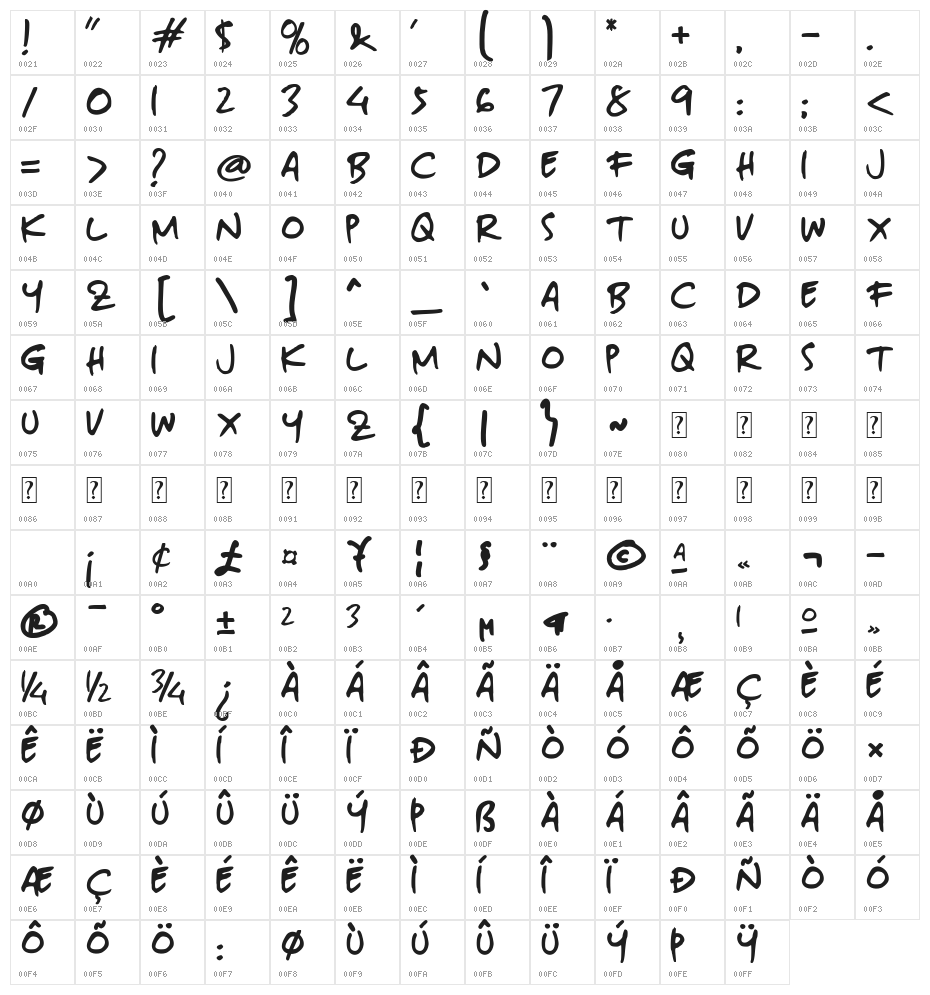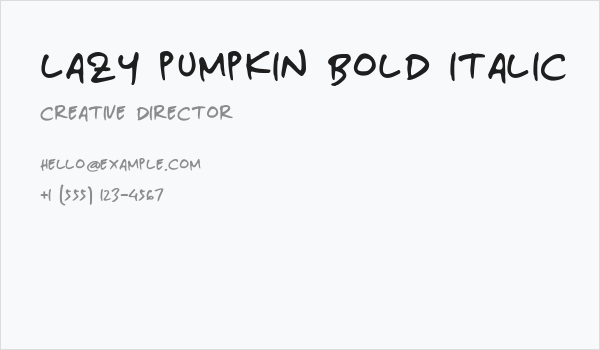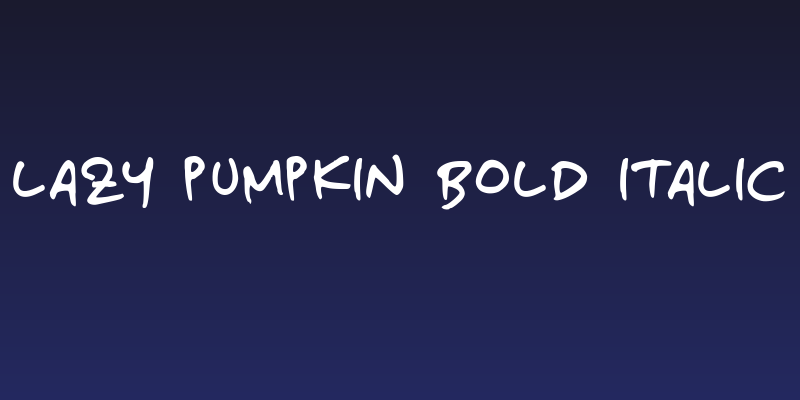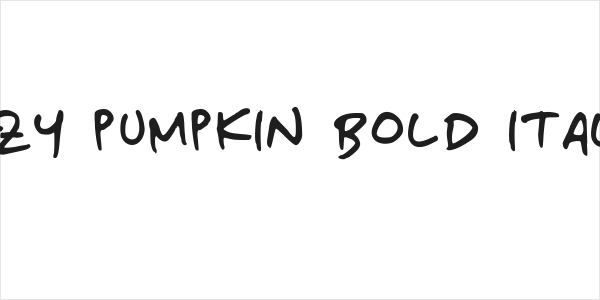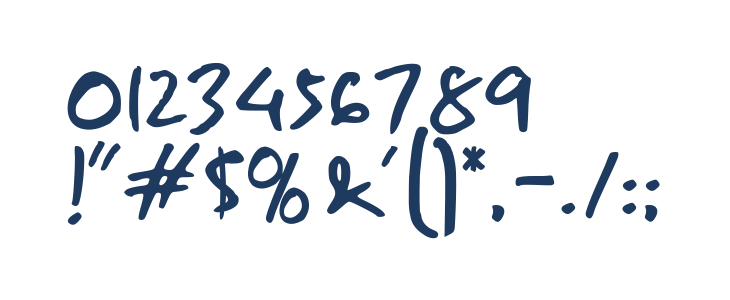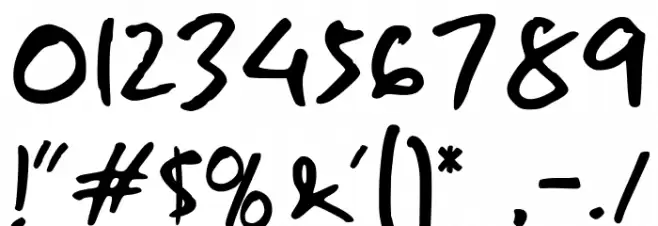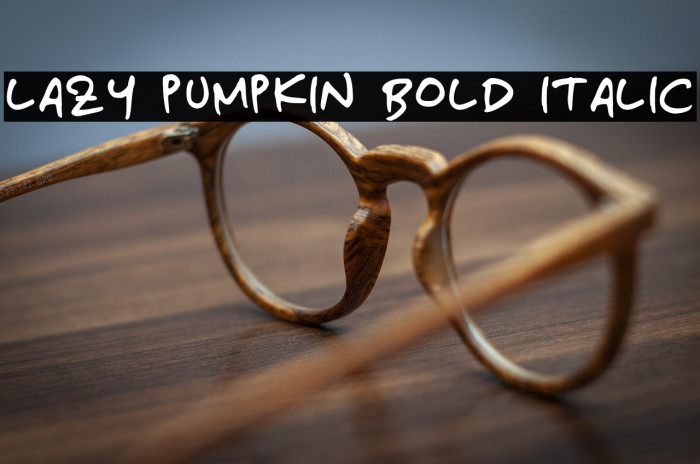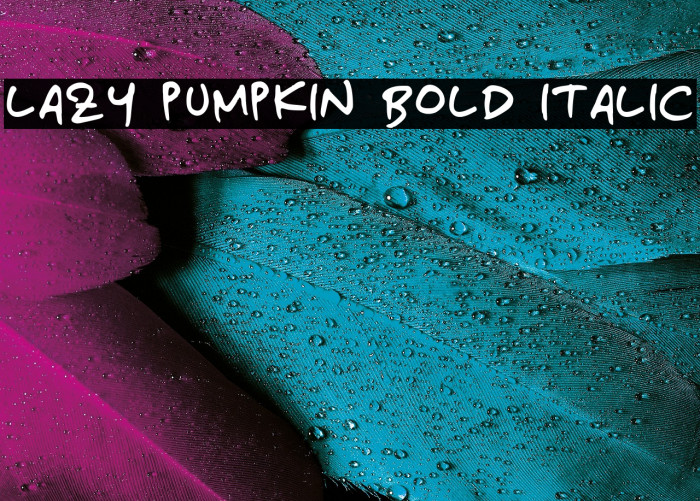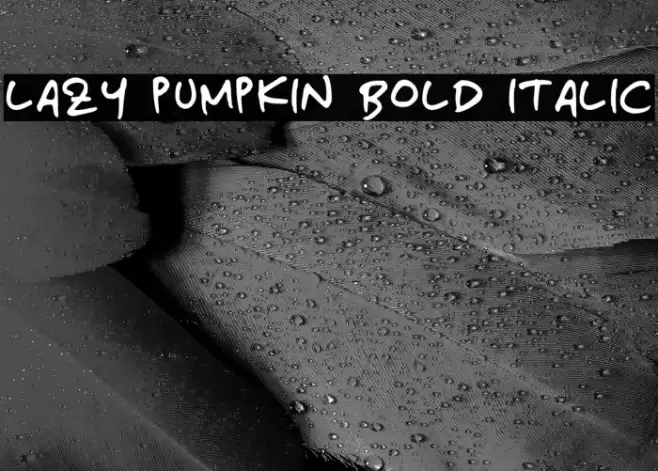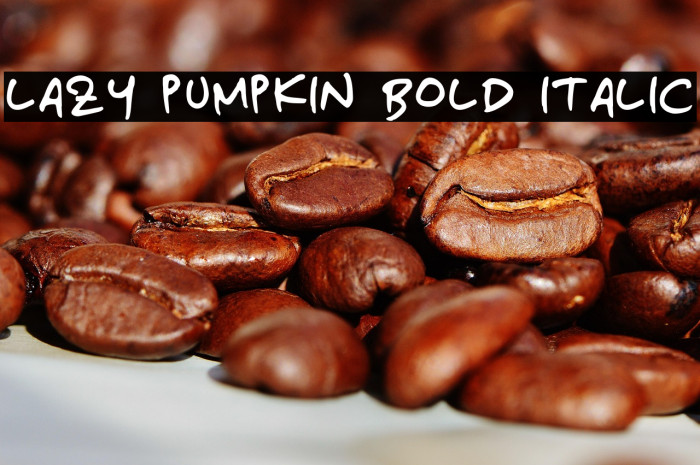
Lazy Pumpkin Bold Italic Font
Lazy Pumpkin Bold Italic Description
This playful and energetic font features bold, rounded strokes with a hand-drawn appearance. The letters are slightly slanted, giving it an informal and dynamic feel. The uppercase and lowercase characters maintain a consistent style, with exaggerated curves and a whimsical flair. The numbers and special characters follow the same lively design, making the font suitable for creative and fun projects. Its boldness ensures high readability, while the italic slant adds a touch of movement and excitement.
| Proposed Projects | Ideal for children's books, playful branding, greeting cards, and creative posters. |